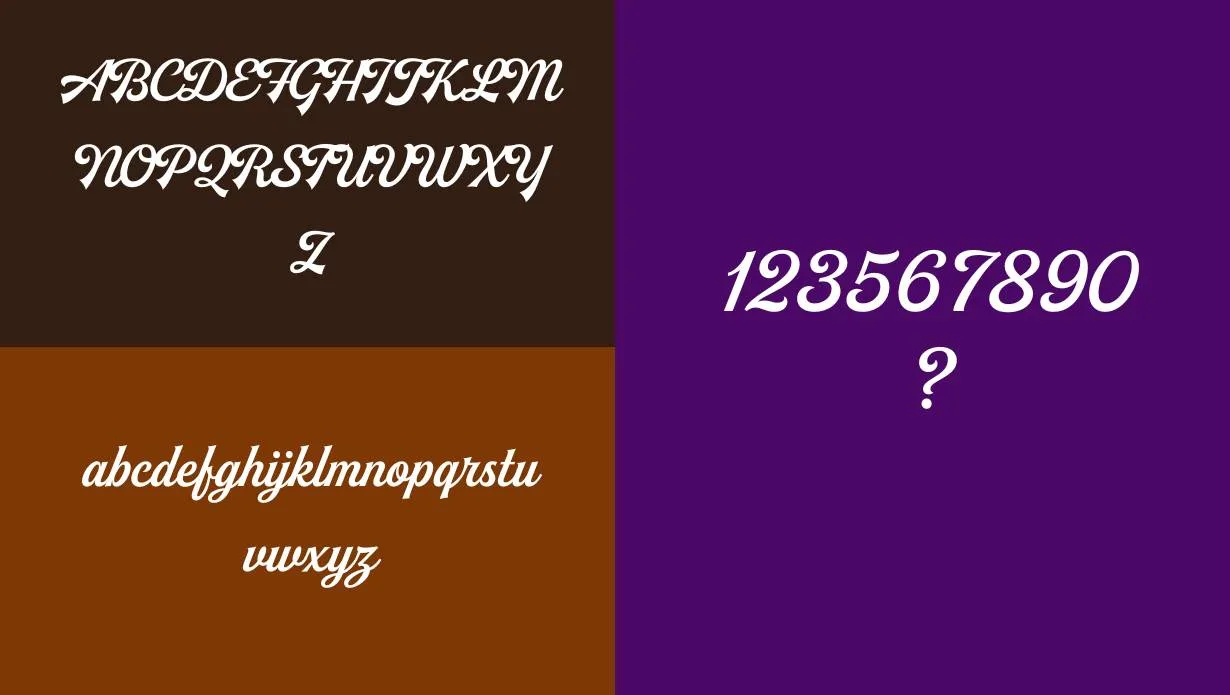
Here we talk about another script typeface Buinton Font. The look of this font is inspired by the 90’s old font. It was designed by Mika Melvas. You can use it for making fashion magazine covers, book covers, comic stores, and much more. It has 361 characters and 592 glyphs. Languages supported Latin and symbols.
| Name | Buinton Font |
| Designer | Mika Melvas |